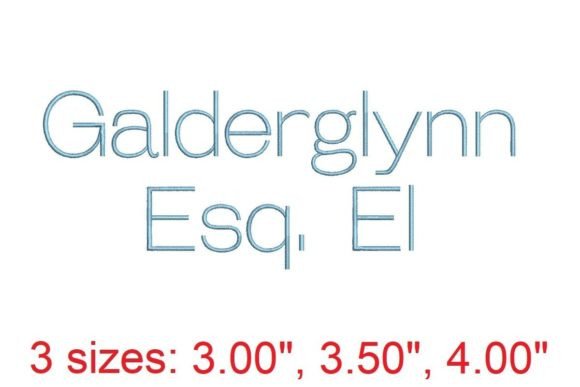
Galderglynn ESQ EL Embroidery Font Review
As an embroidery designer with years of experience, I’m always on the lookout for fonts that can elevate my personalized gift projects. The Galderglynn ESQ EL Embroidery Font has caught my attention for its elegant style and versatility. Whether I’m working on baby embroidery, wedding gifts, or custom tote bags, this font offers a refined touch that feels both timeless and modern. In this review, I’ll share my firsthand experience using the Galderglynn ESQ EL Embroidery Font in various applications and provide practical insights for embroidery makers, Etsy sellers, and small business owners.
The First Impression: Elegance Meets Charm
From the moment I viewed the Galderglynn ESQ EL Embroidery Font, I was struck by its balance of sophistication and warmth. The design has a soft, handcrafted feel that makes it ideal for handmade products. Its curves are smooth yet distinctive, giving it a sense of grace that works well for monograms, names, and meaningful phrases. This font doesn’t feel overly formal—it carries a subtle charm that appeals to a wide range of customers, from those looking for romantic wedding keepsakes to parents seeking a special baby blanket.
Its detail level is impressive. The lettering is clean and precise, making it suitable for both bold and delicate applications. The font’s emotional appeal is strong, especially when used on items like pillow covers, embroidered towels, or nursery decor. It feels personal, which is essential for any personalized gift.
Versatile Applications for Personalized Gifts
The Galderglynn ESQ EL Embroidery Font shines across a variety of projects. For baby embroidery, it adds a gentle, sophisticated touch to onesies, blankets, and burp cloths. When used on a baby blanket, the font’s soft curves create a warm, inviting look that parents will love. For wedding gifts, it’s perfect for monogramming pillows, table runners, or custom aprons that serve as memorable keepsakes.
This font also works well for family keepsakes, such as embroidered towels or kitchen linens. The way it blends with fabric textures makes it ideal for handmade products that feel authentic. As an Etsy seller, I’ve found that designs using this font stand out in listings, especially when paired with high-quality product photography. Customers often comment on how the font adds a “personalized” and “handmade” quality to the finished product.
For craft fair products and small shop items, the Galderglynn ESQ EL Embroidery Font is a reliable choice. It looks great on tote bags, aprons, and pillow covers, and its adaptability means it can be used in multiple styles—whether classic, modern, or seasonal.
Where to Use It Carefully
While the Galderglynn ESQ EL Embroidery Font is versatile, there are situations where it requires more attention. Small lettering, for example, may lose some detail if not stitched with care. Delicate details could become less visible on textured fabrics or thick towels. If you’re planning to use it on stretchy baby clothes, consider adjusting the stitch density to prevent distortion.
Curved surfaces and dark fabrics may also pose challenges. On dark backgrounds, the thread color contrast needs to be strong to ensure visibility. For curved areas, test the font on a sample before committing to a full project. Additionally, if you're planning to embroider on a product that will be washed frequently, make sure the stabilizer and hoop size are appropriate to maintain the design’s integrity.
Impact on Giftability and Customer Trust
The Galderglynn ESQ EL Embroidery Font enhances the giftability of any product. Its elegant appearance makes it ideal for occasions like weddings, baby showers, or birthdays. Customers often associate this type of font with thoughtfulness and quality, which increases perceived value. As a small business owner, I’ve noticed that items featuring this font tend to receive more engagement and positive feedback.
It also strengthens the emotional connection between the customer and the product. A personalized gift with a beautifully crafted font feels more meaningful. This is especially true for items like baby blankets or wedding keepsakes, where the design plays a key role in the sentimental value.
From a marketing perspective, the font helps in creating visually appealing Etsy listings and printable mockups. Its clean lines and balanced proportions make it easy to showcase in product photography, which can significantly improve buyer engagement.
Practical Embroidery Tips
Before using the Galderglynn ESQ EL Embroidery Font on real customer orders, here are some key steps to follow:
- Test on scrap fabric: Always try the font on a sample piece to see how it looks in different lighting and fabric types.
- Check thread color contrast: Ensure the chosen thread color stands out clearly against the fabric, especially on darker backgrounds.
- Confirm hoop size: Make sure the font fits within your embroidery hoop without being stretched or distorted.
- Review stitch density: Adjust the density based on the fabric thickness and the desired outcome.
As an experienced embroidery maker, I recommend testing the font thoroughly before using it on commercial projects. With the right preparation, the Galderglynn ESQ EL Embroidery Font can become a staple in your digital embroidery file library and a favorite among your customers.